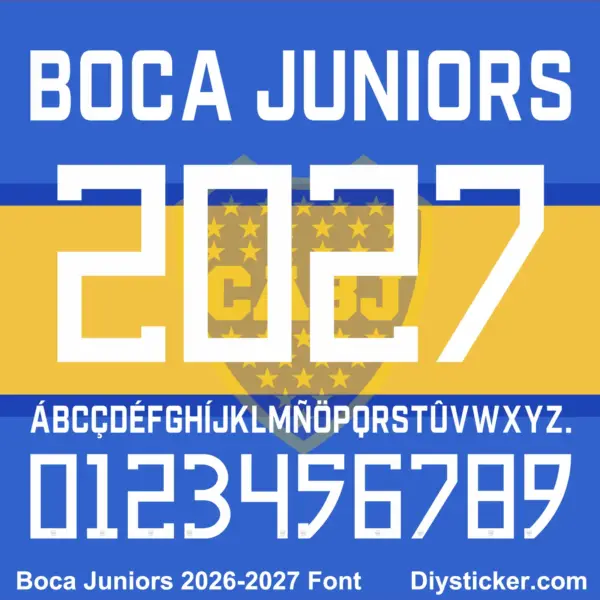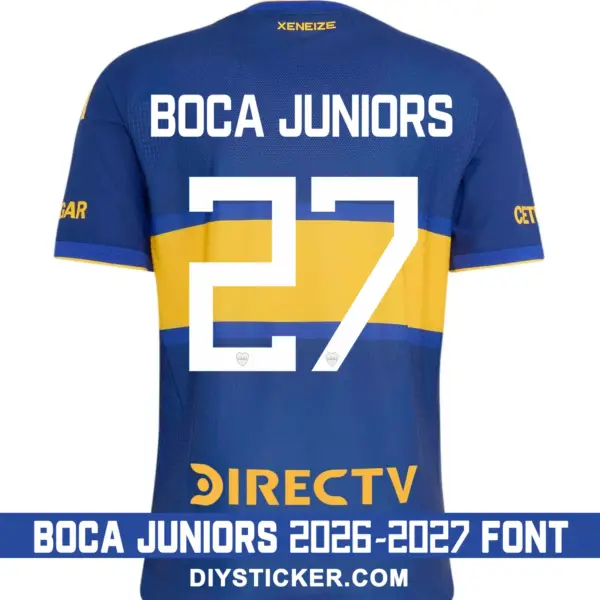
Boca Juniors 2026-2027 Font & Numbers Download
Bring the passion of La Bombonera to your custom kit collection! This digital typography file pack features the bold Boca Juniors 2026-2027 Font and Numbers in solid white, designed with blocky athletic geometry, angular cut corners, sharp diagonal cuts on numeric glyphs, and the iconic CABJ shield crest integrated at the base of every digit.
Complete uppercase alphabet, squad numbers 0-9, and specific diacritic accents.
Upgrade your custom sports apparel catalog with the definitive look for Los Xeneizes! This digital typography product delivers the full Boca Juniors 2026-2027 font style designed for Argentine Primera División and international tournament campaigns. Featuring block-style square geometry, sharp interior angles, and dramatic diagonal terminal cuts, this layout ensures maximum legibility against the iconic blue and yellow (Azul y Oro) home shirt while embedding the official CABJ crest at the base of each squad number.
A-Z Uppercase Alphabet: Heavy, squared-off block letters built for high pitch visibility and clean spacing across player nameplates.
0-9 Custom Block Numbers: Bold, angular numeric glyphs with sharp internal cutouts and the official CABJ shield badge neatly aligned at the bottom.
Special Accents & Diacritics: Complete set of punctuation marks and international accents (
Á,Â,Ç,É,Ñ,Ö,Û, etc.) to accurately render names for star players.